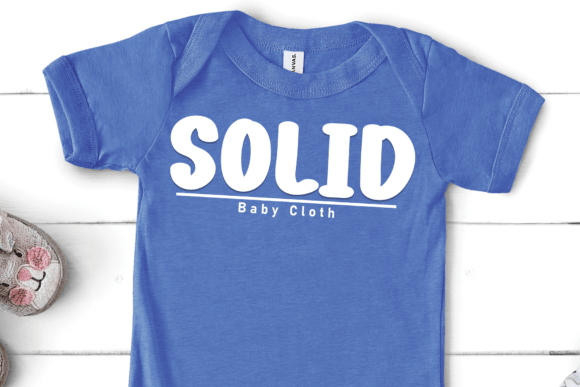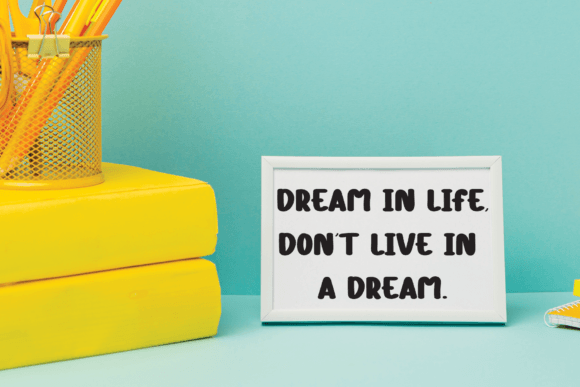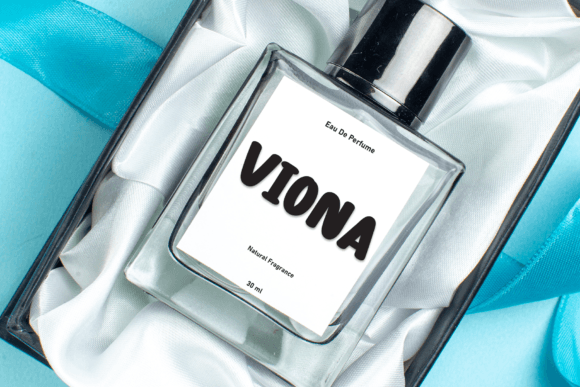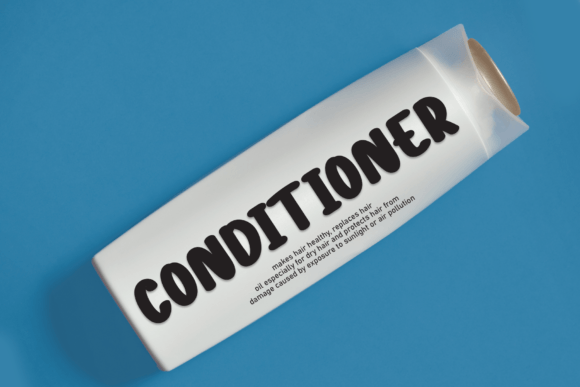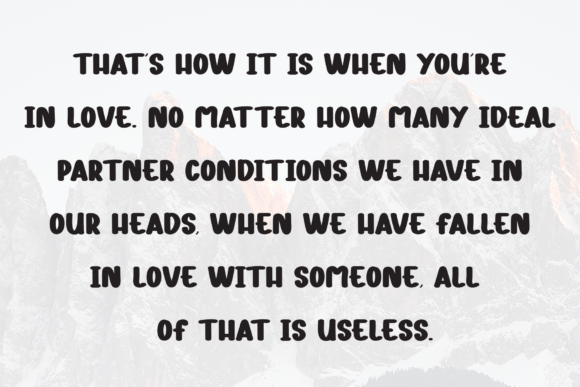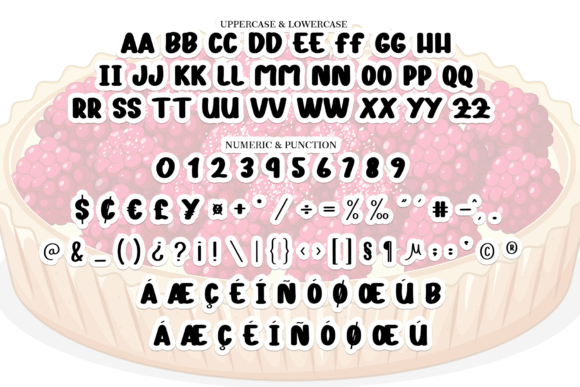
Introduction to Mulberry Cake Font Font
Fonts play a crucial role in design, and the Mulberry Cake Font font is a typeface that brings both character and versatility to any project. Whether you’re working on a branding project, a website, or a print design, the Mulberry Cake Font font offers a unique style that can elevate your work.
Mulberry Cake is a sweet and friendly handwritten display font.
Cute and fun, this font is ideal for writing wedding invitations, cards, or any other design that might need a fun touch .
Key Features of Mulberry Cake Font Font
Why Choose Mulberry Cake Font Font?
The Mulberry Cake Font font is more than just a typeface – it’s a design tool that helps you communicate your message with style and clarity. Its unique character set and versatile design make it suitable for a wide range of applications, from elegant invitations to bold headlines.
With its carefully crafted letterforms and balanced proportions, the Mulberry Cake Font font ensures readability and visual appeal across all mediums.
What makes Mulberry Cake Font font special?
The Mulberry Cake Font font stands out with its unique design, exceptional readability, and versatility across various design applications.